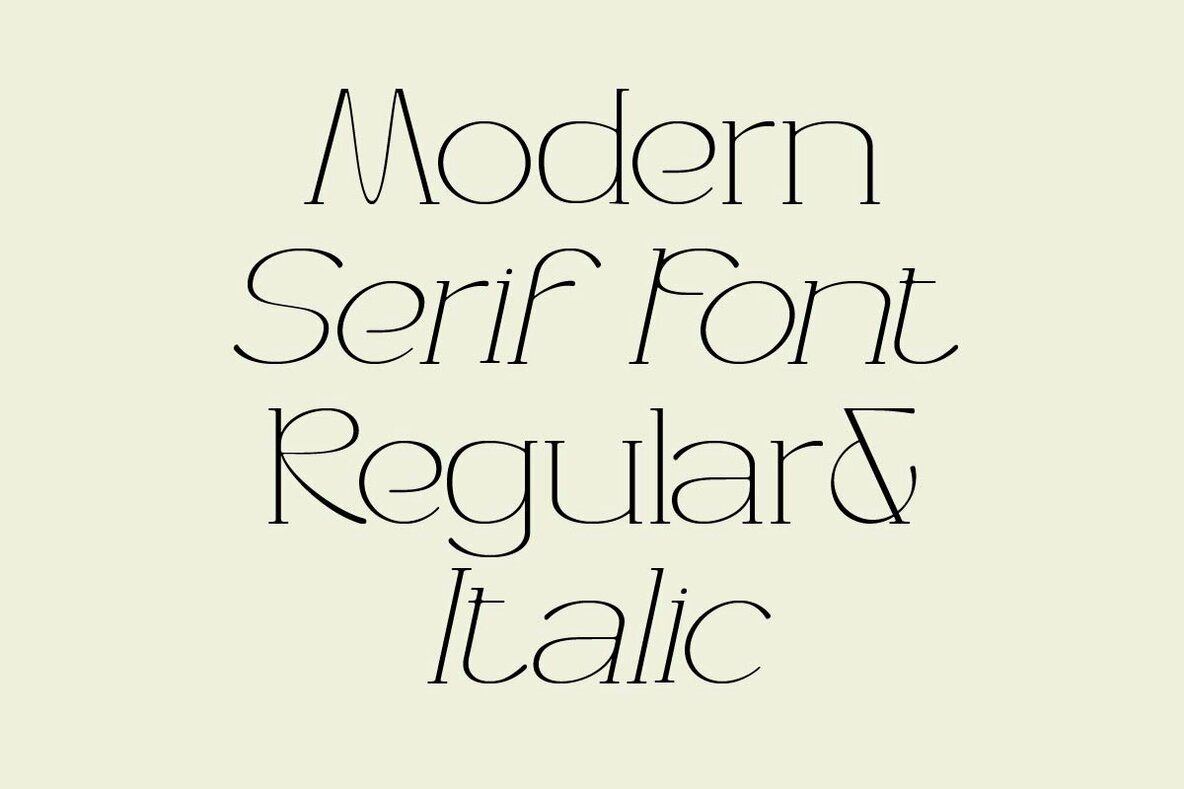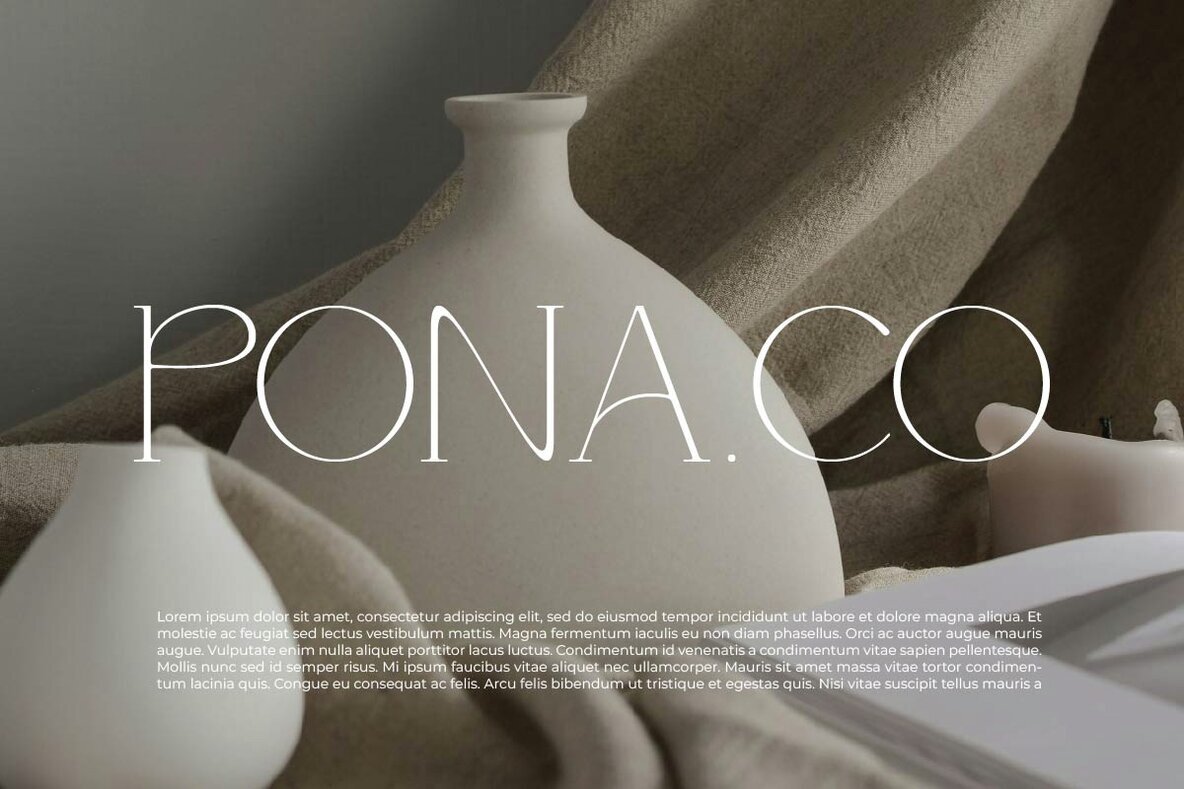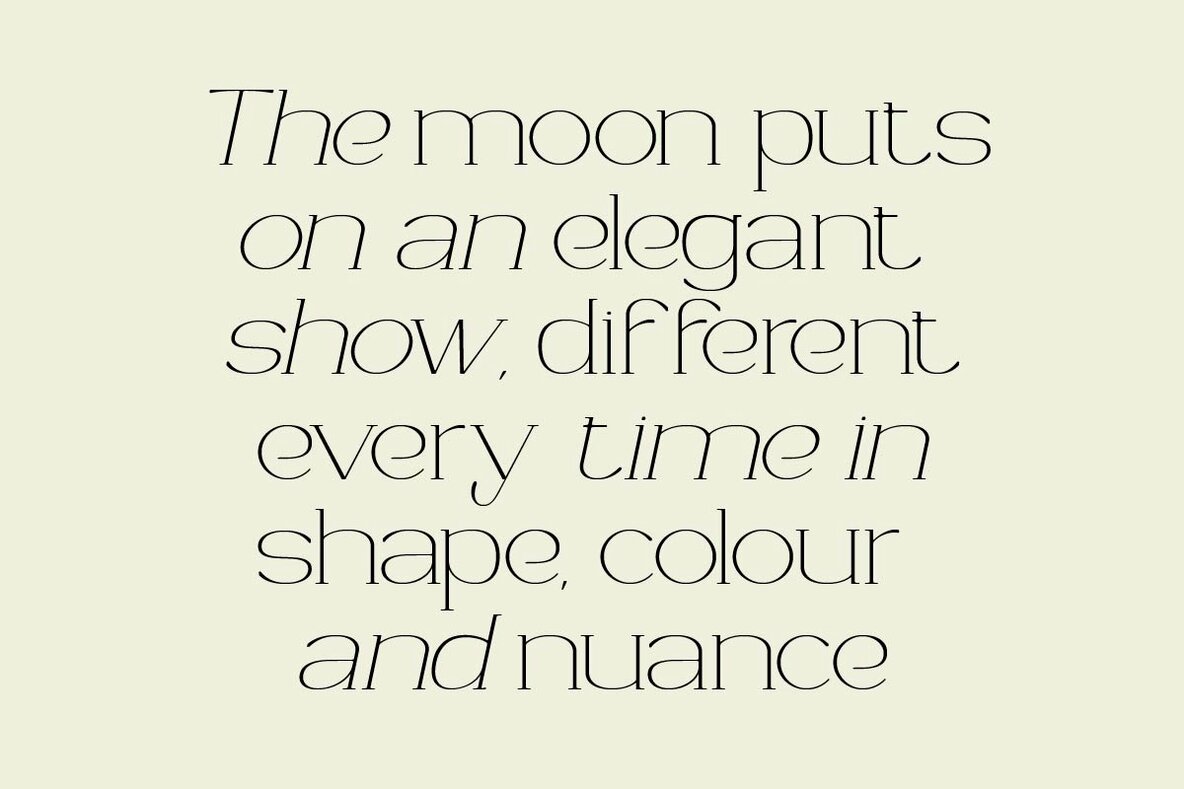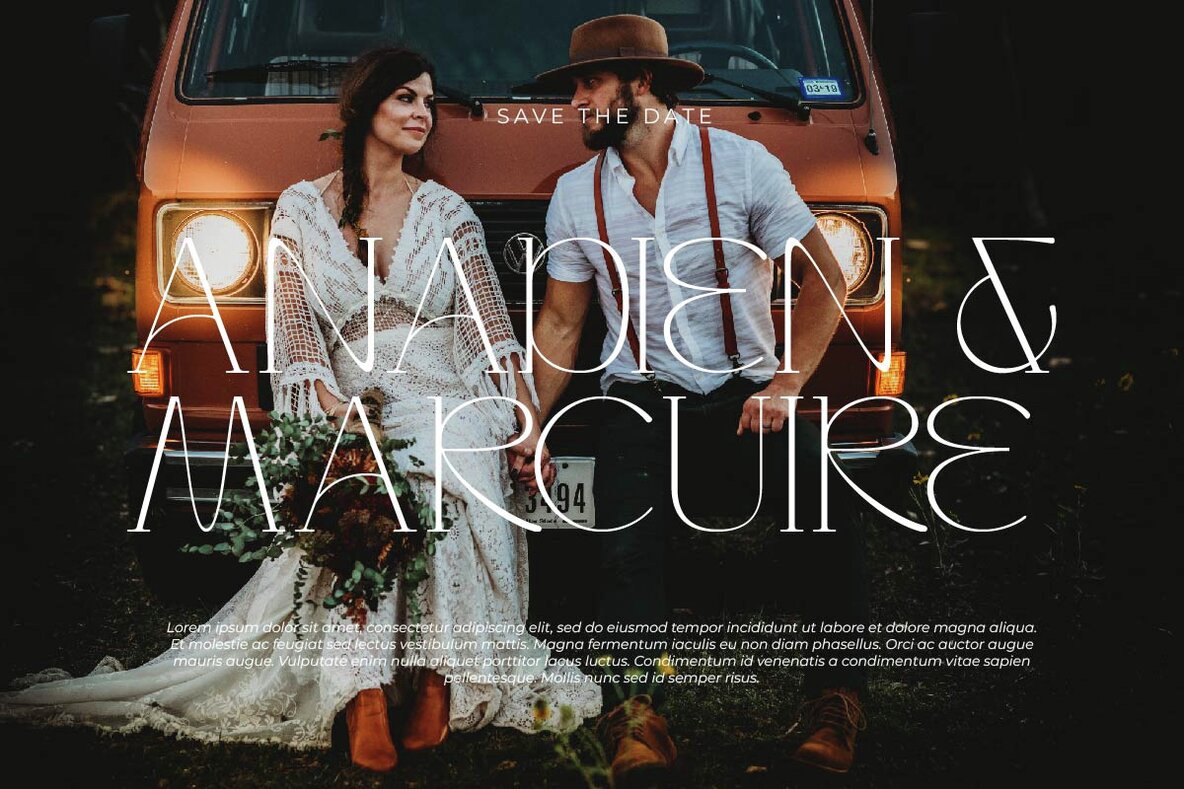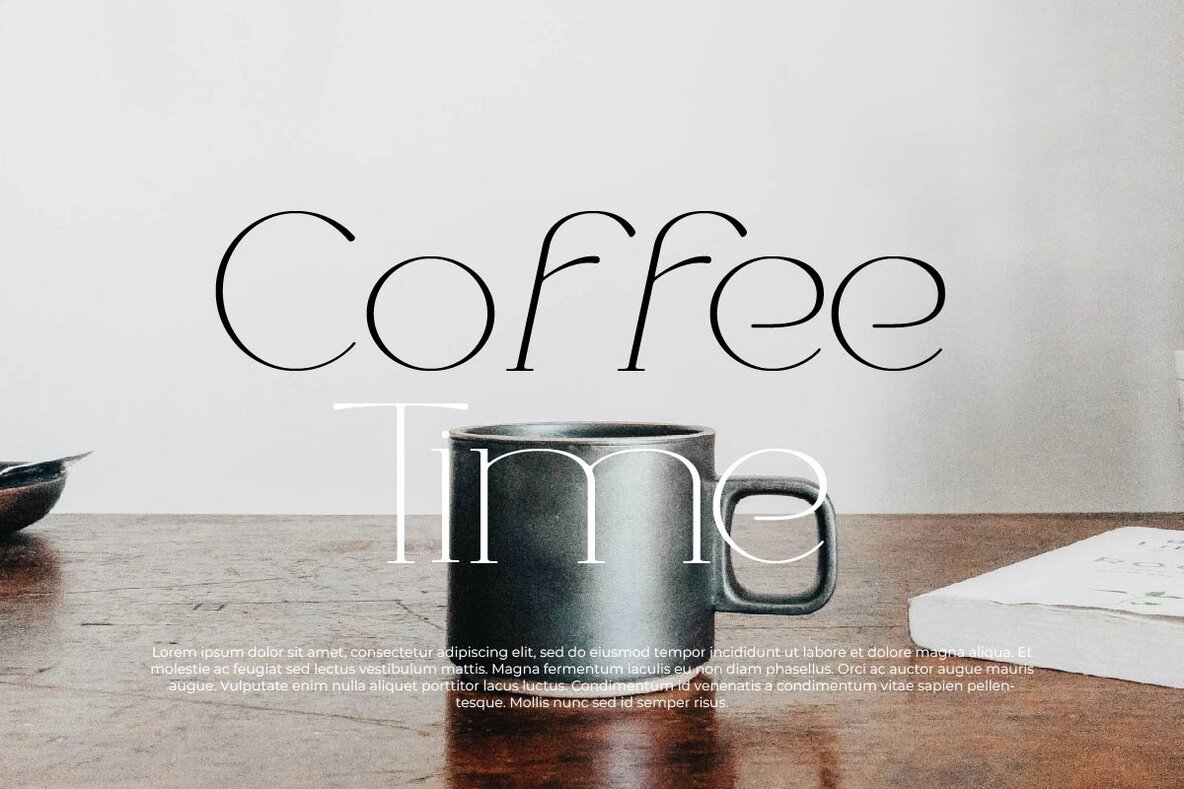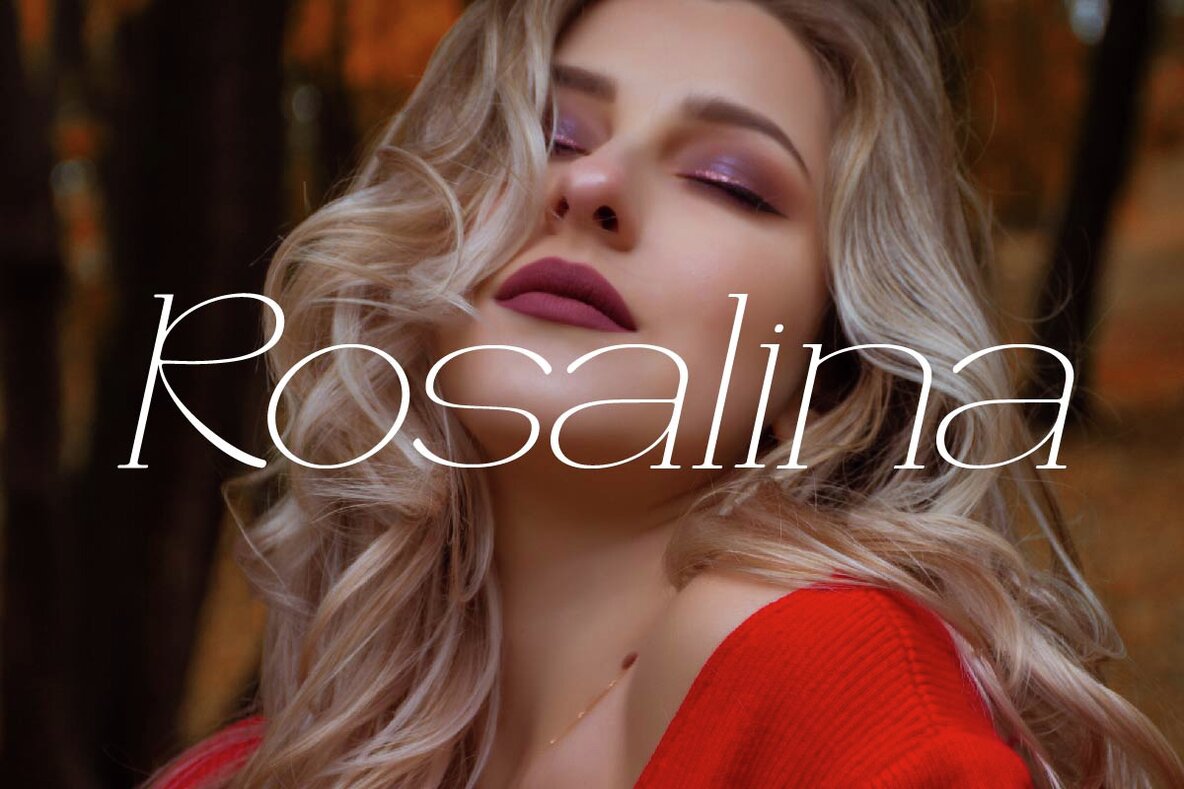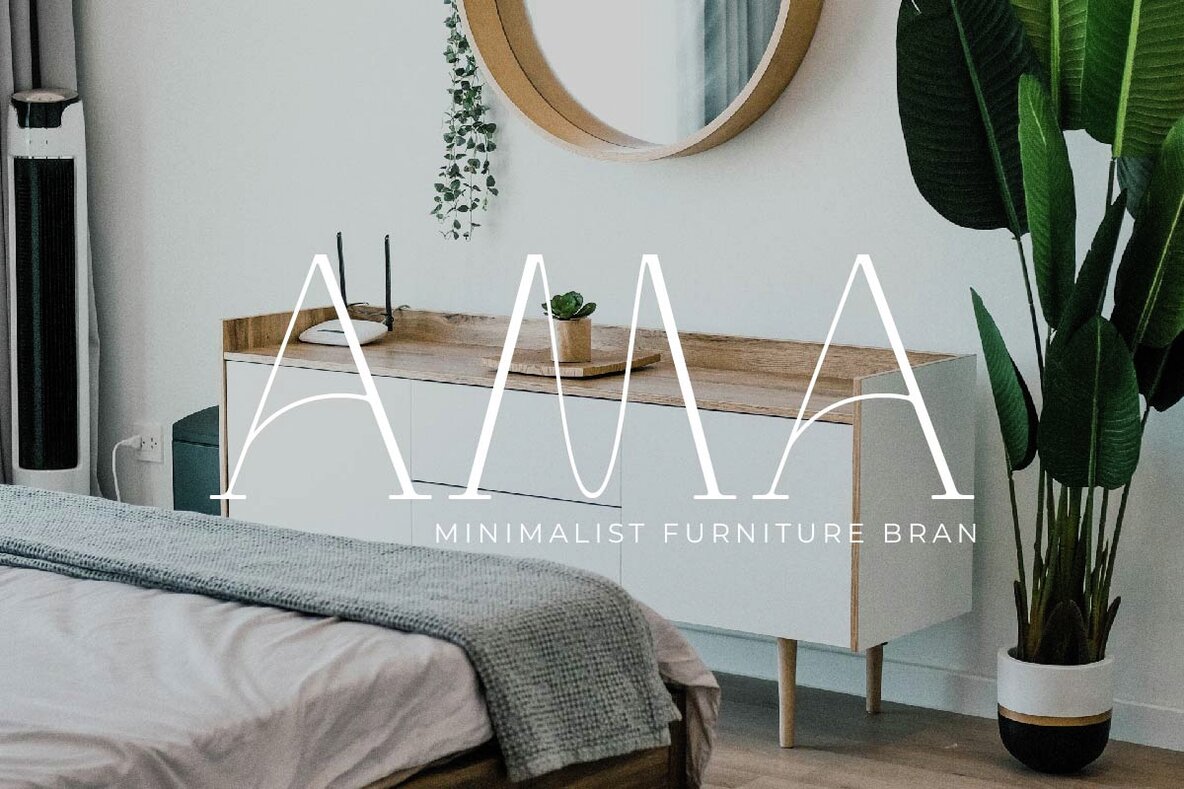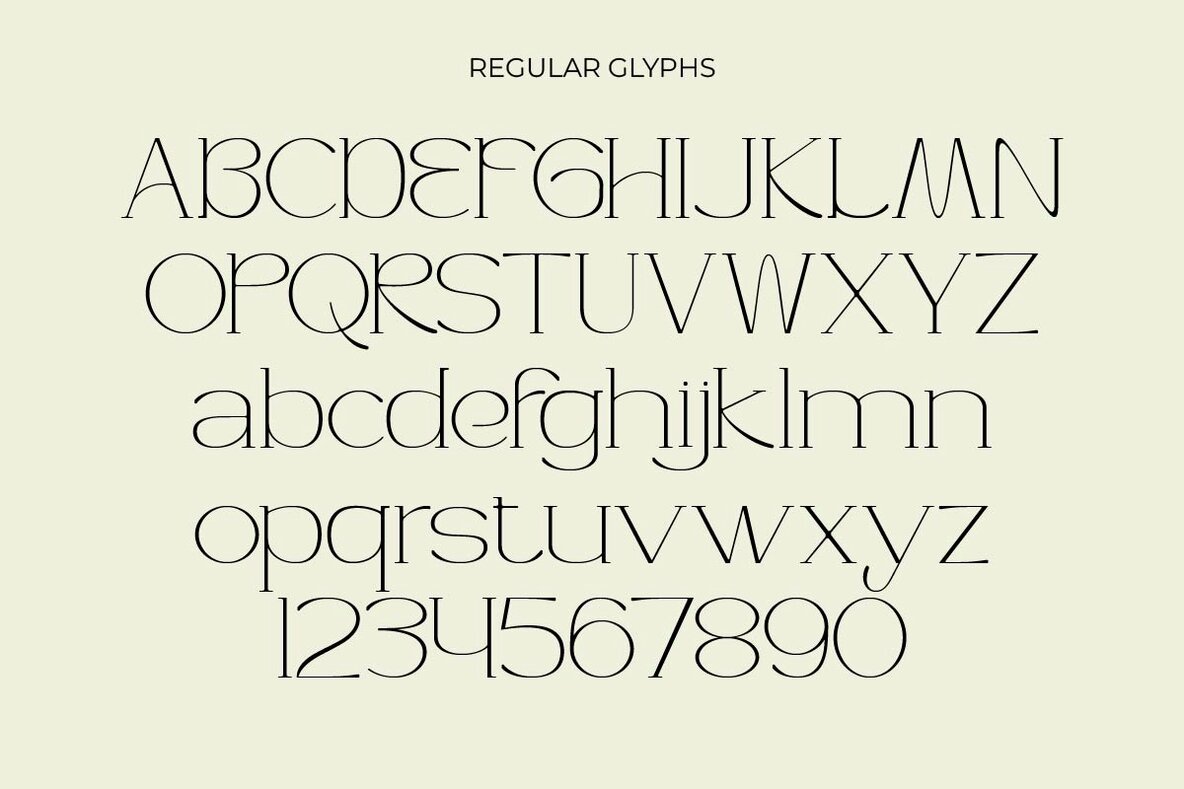
Rosaline Marige Font
Rosaline Marige is a modern-style font that seamlessly blends traditional serif elements with a contemporary touch. This font features a clean and elegant design, offering two main styles: regular and italic. Each letter is meticulously crafted to ensure a professional and modern impression, making it ideal for a wide range of design projects, particularly those with a modern-themed branding focus. With its clarity and readability, Rosaline Marige is a superb choice for enhancing the appearance and impact of any design.Rosaline Marige: A Modern Serif with Contemporary Elegance